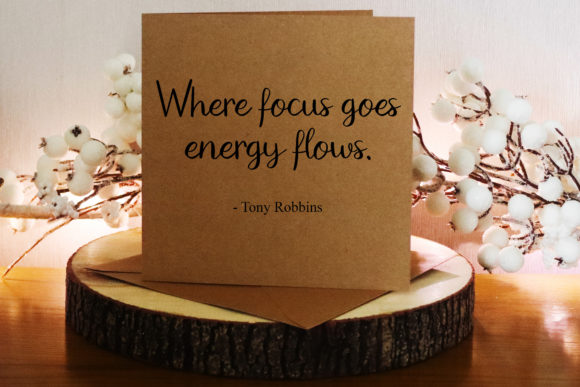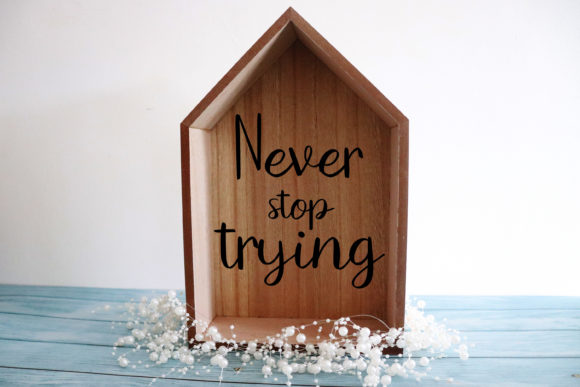
Keychain Font
db-ku.com - Script & Handwritten -- Keychain is an authentic handwritten font. Its flexibility and neat style will brighten up each of your designs. Have fun with this cool font and explore its endless variations.